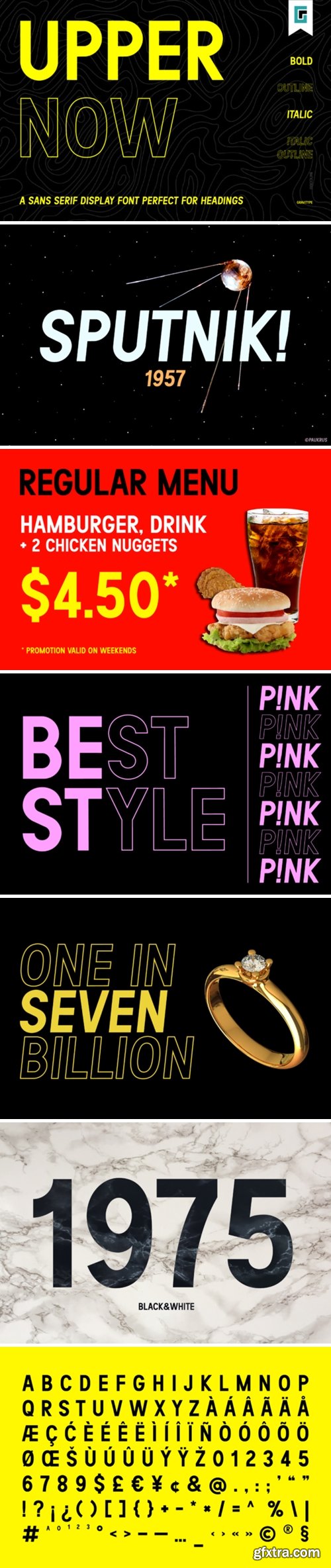
Upper Now Font
Upper Now is a cool, bold and thick lettered display font. This font is ideal for writing web designs, business cards, or pretty much anything else that requires a unique touch.